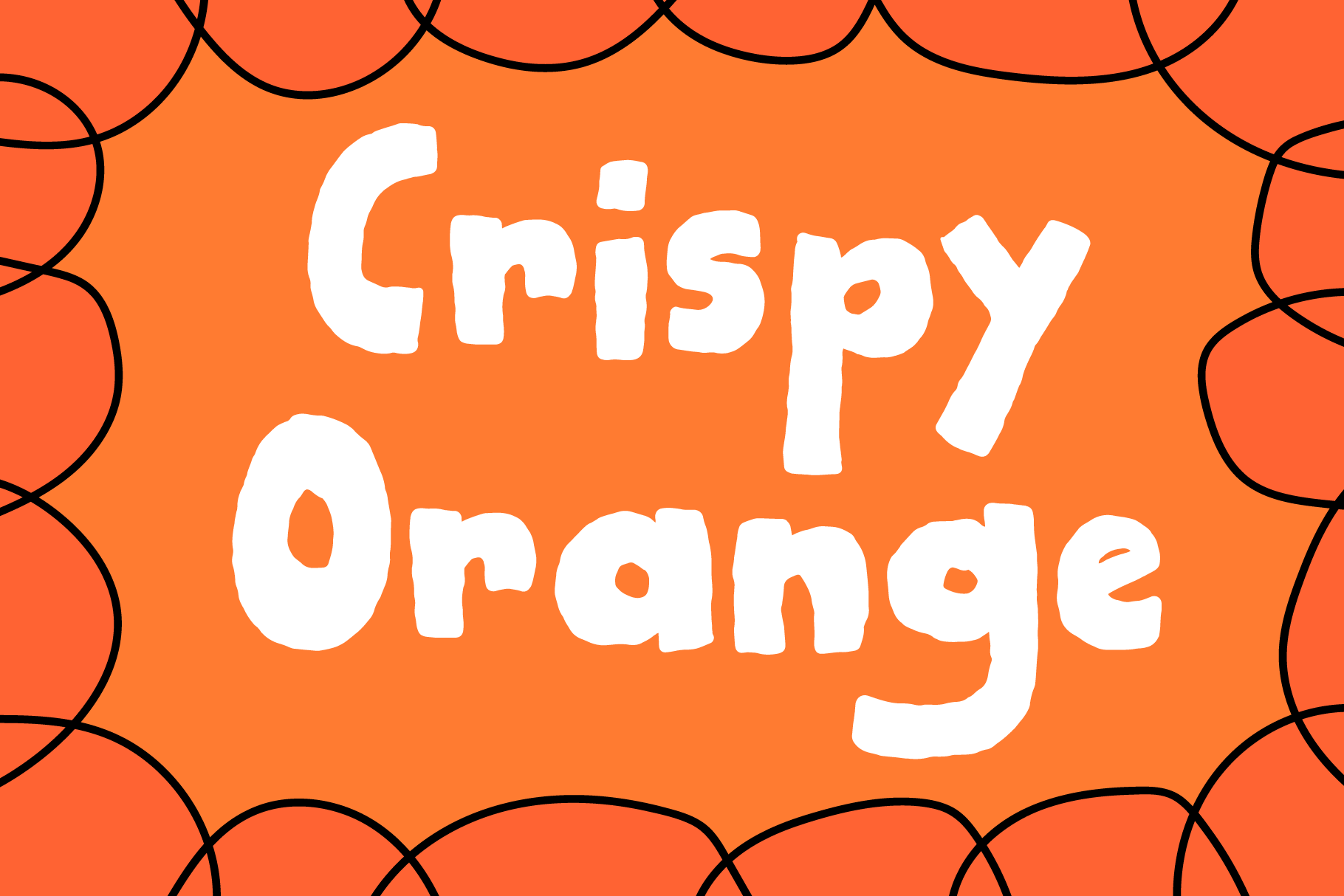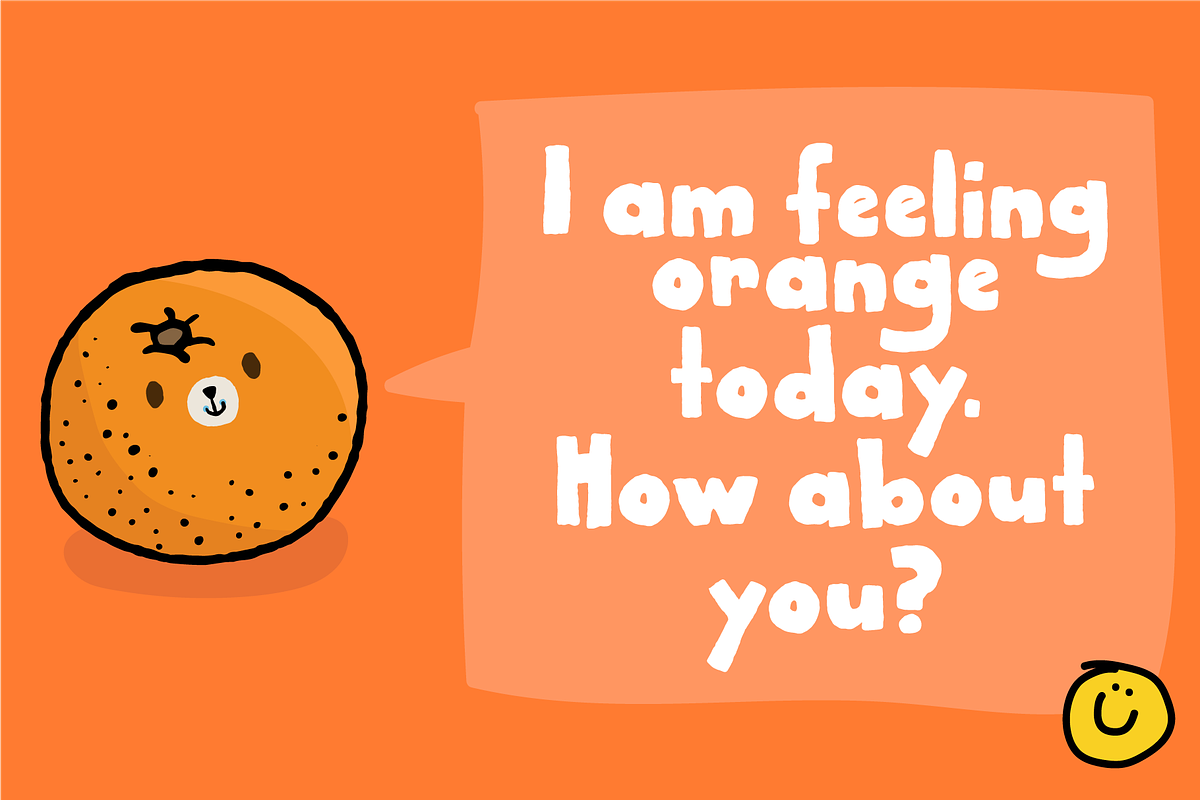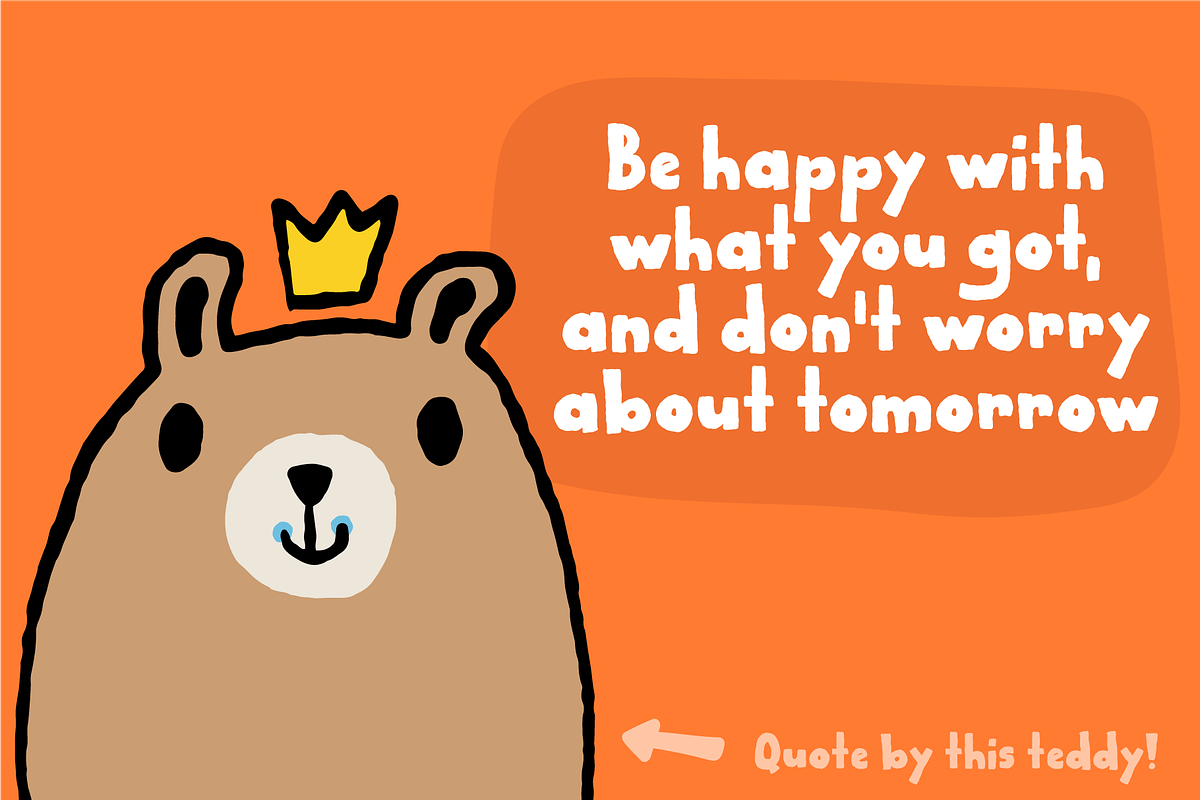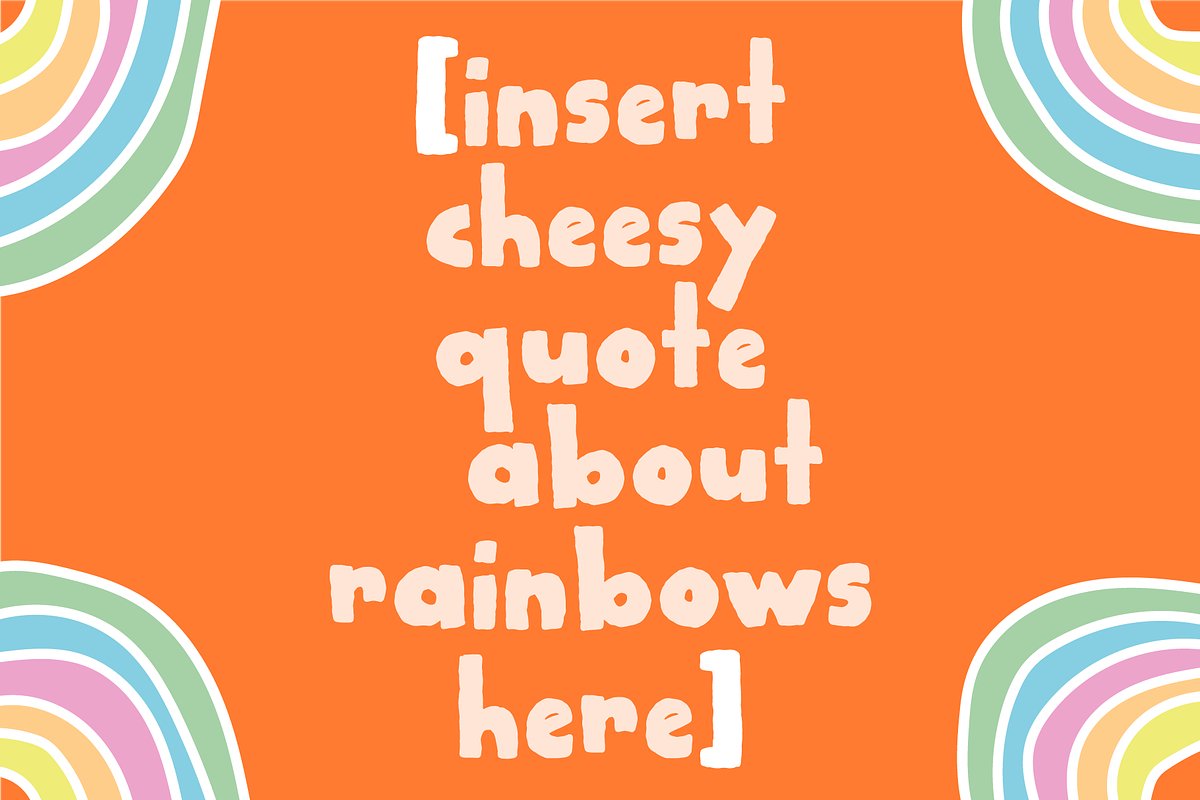
Crispy Orange font
The other day, I ate an orange - and I absolutely love oranges! This one was perfect - juicy, sweet and crispy in a very delicate way. This font is also juicy, sweet and crispy and on top of that, organic and handmade + it has this crunchy outline that just makes you want to take a bite off it ... or rather, your design will love it! ;)